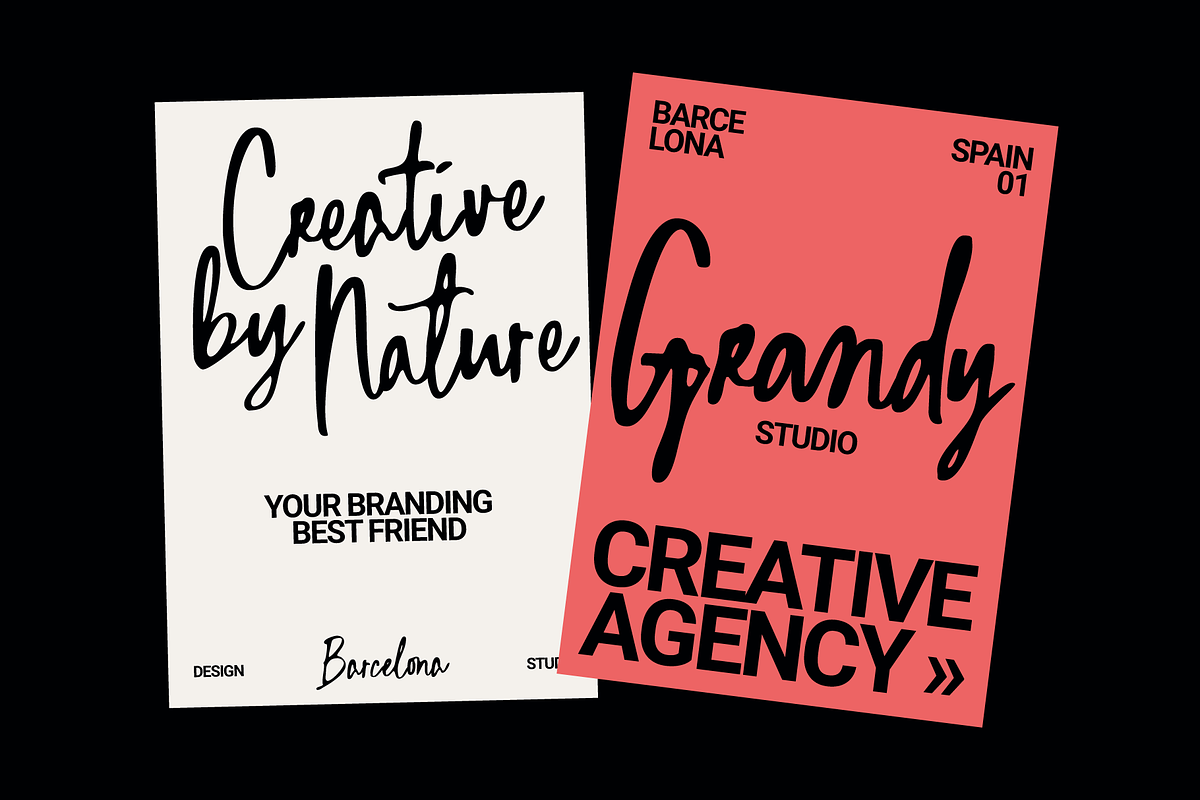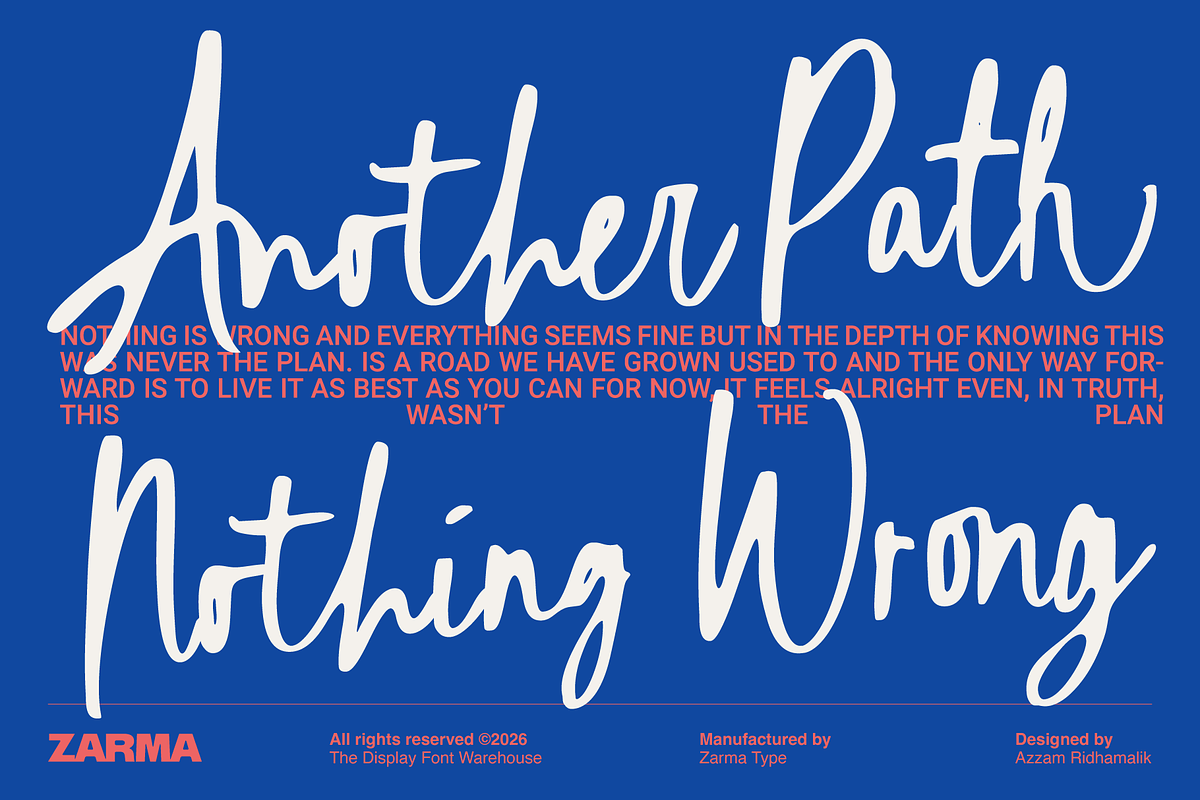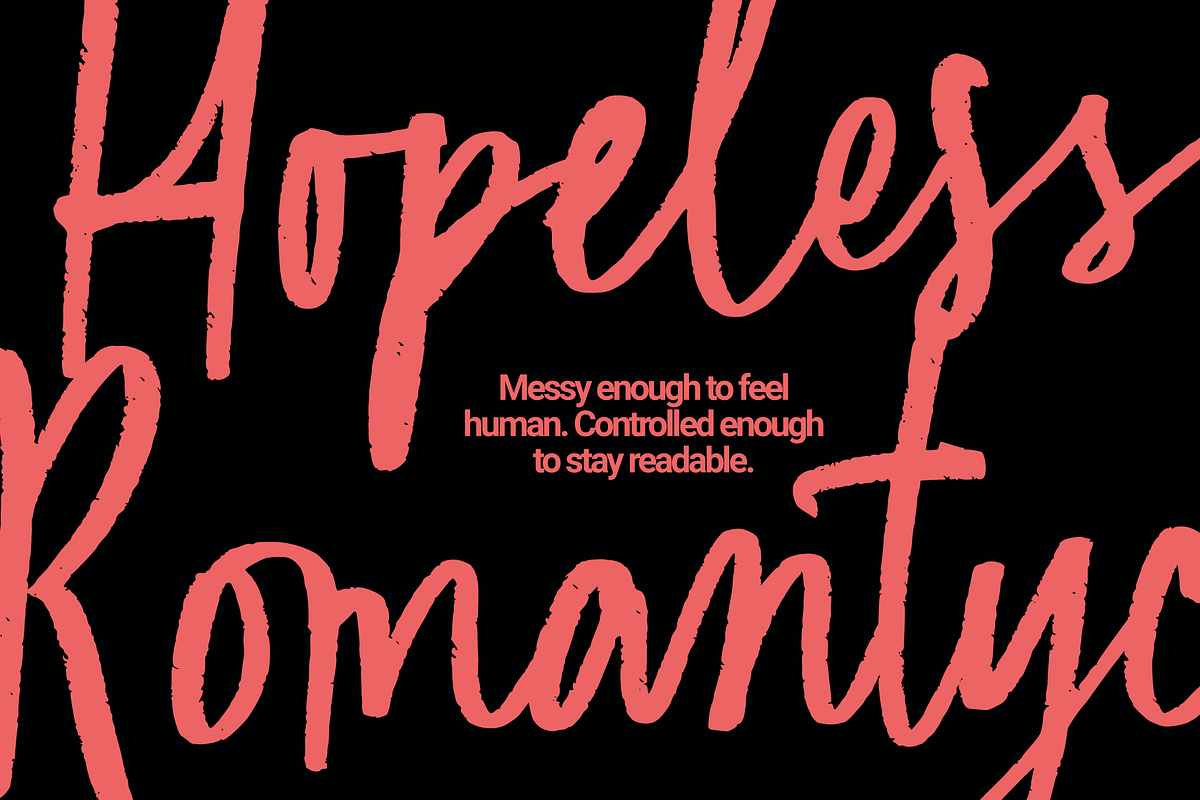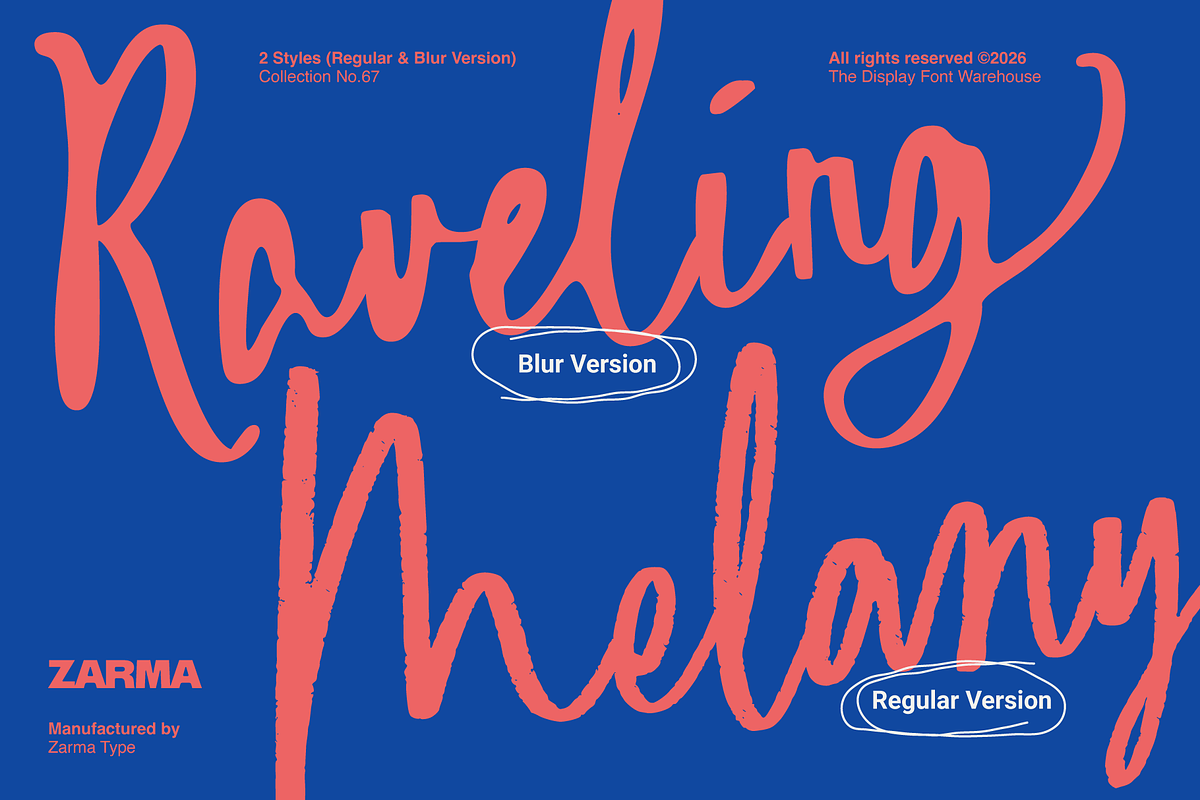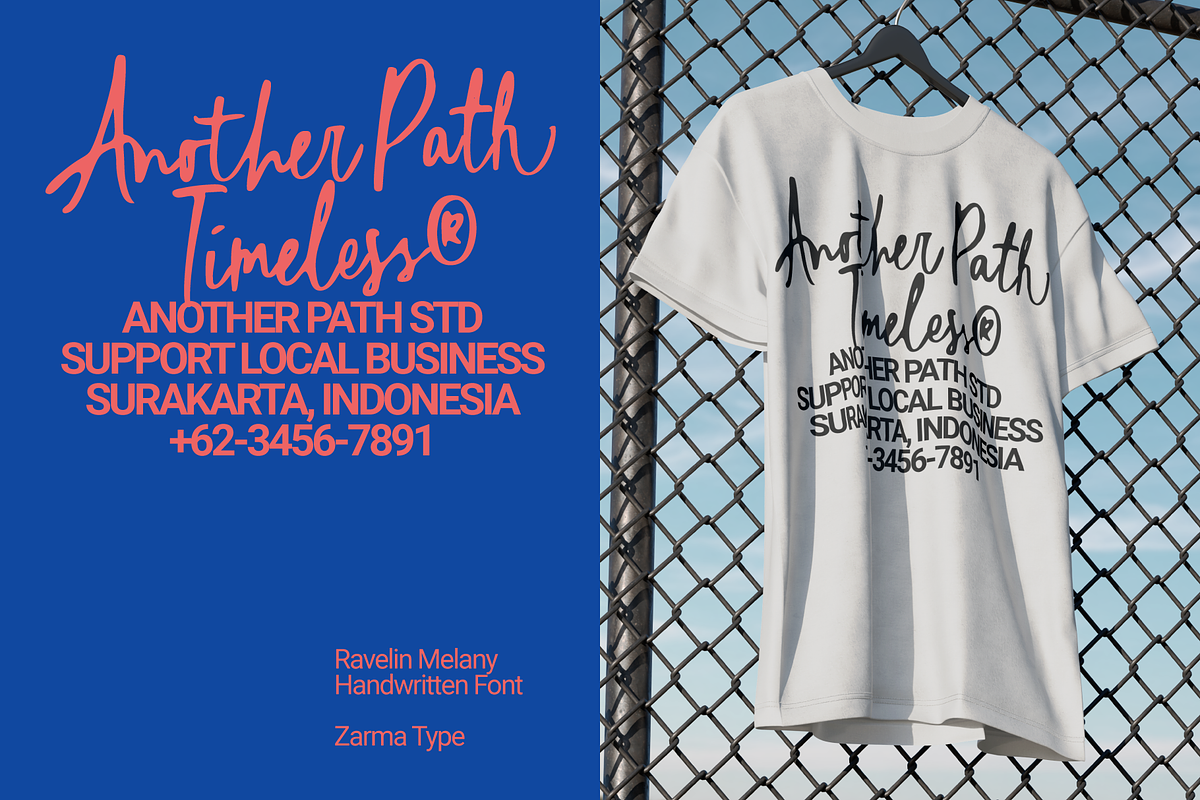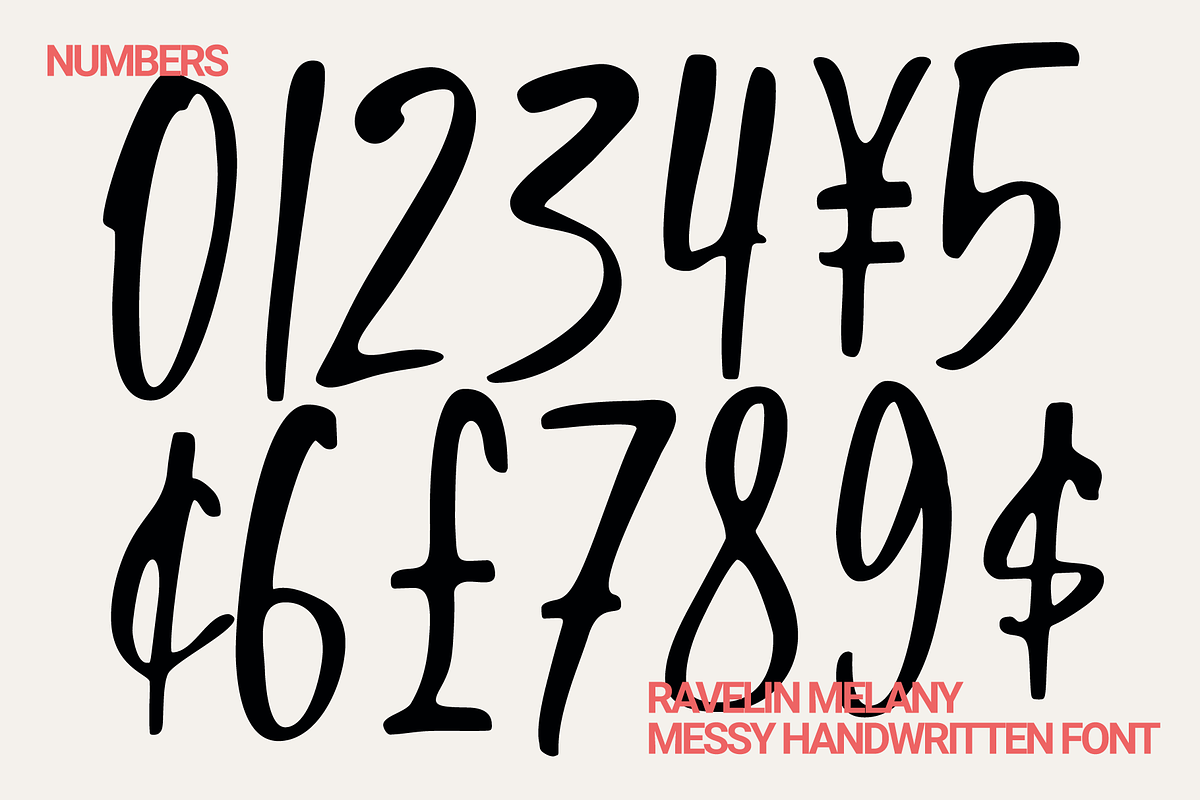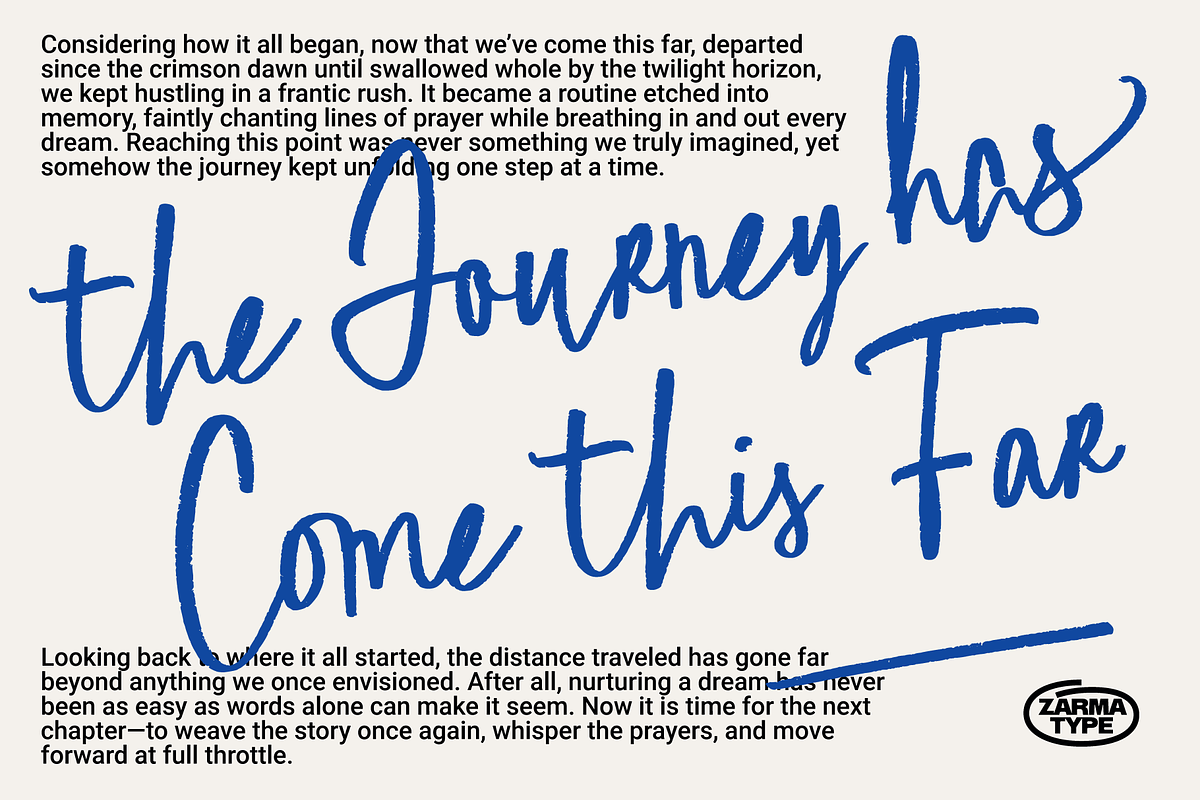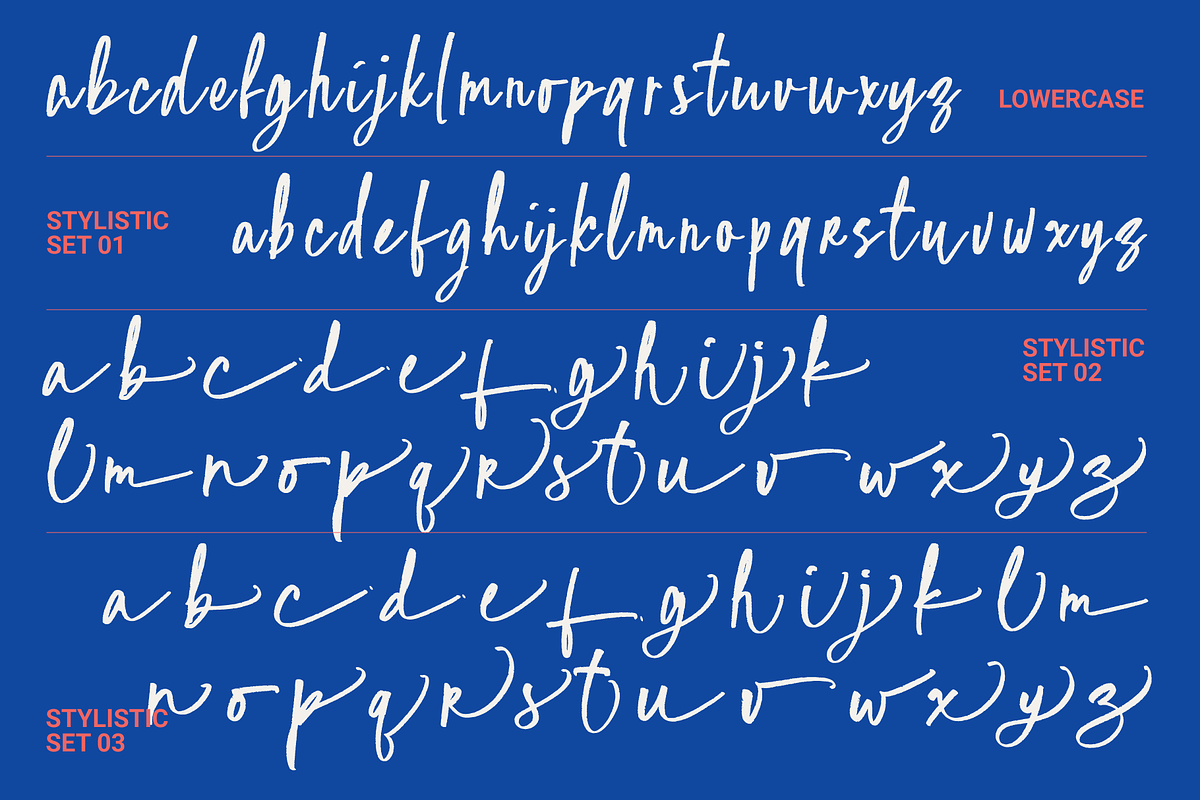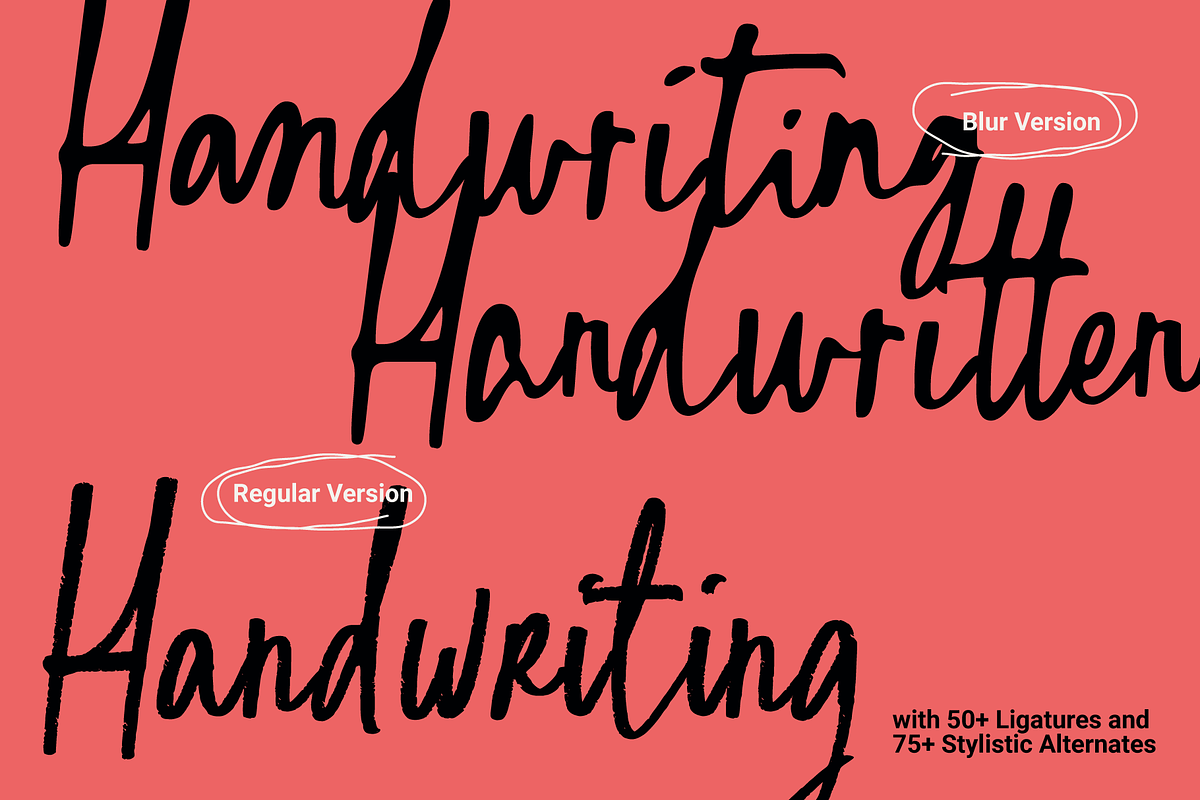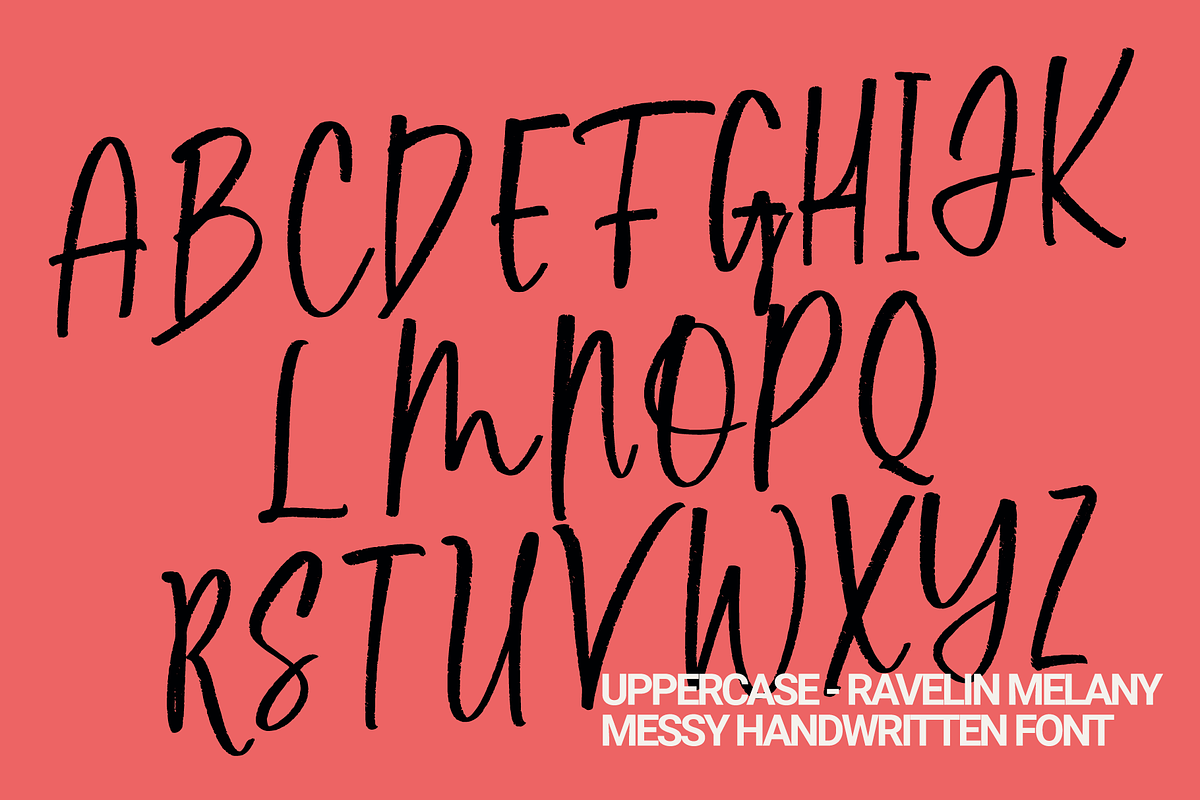
Raveling Melany - Messy Handwritten
Raveling Melany is an expressive messy handwritten font shaped by wild capitals, shifting letter sizes, irregular baselines, and the unpredictable rhythm of real handwriting. Its spontaneous brush movement feels raw and personal, while the controlled lowercase forms keep words readable and practical for display typography.
Inspired by hurried notes, typewriter-era editorial culture, textured brush lettering, and inky marker strokes, Raveling Melany brings an imperfect human character into modern design. Its dramatic uppercase letters create strong visual statements, while varied alternates and natural ligatures help repeated characters feel less mechanical.
The font comes in two distinctive styles. The Regular Style features rough dry-brush edges and visible handcrafted texture, while the Blur Style offers a smoother, denser, inky-marker finish. Use them separately for different moods or combine both styles to create layered, expressive compositions.
With more than 50 ligatures and 75 stylistic alternates, Raveling Melany gives you greater control over the rhythm and personality of each word. Alternate letterforms offer genuinely different shapes rather than repeating the standard characters with only minor changes.
Editorial layouts and magazine covers
Branding and expressive logo designs
Posters and oversized headlines
Fashion campaigns and apparel graphics
Product packaging and labels
Album covers and merchandise
Social media graphics and quotes
Creative agencies and personal brands
Book covers and independent publications
Contemporary advertising campaigns
Two styles: Regular and Blur
Wild and expressive capital letters
Irregular handwritten baseline
Varied letter sizes and natural movement
50+ handcrafted ligatures
75+ stylistic alternates
Three stylistic sets
Numbers and punctuation
Suitable for print and digital projects
Style Characteristics:
Regular Style A rough handwritten style with textured dry-brush edges, visible imperfections, and an organic handcrafted finish.
Blur Style A smoother handwritten style with dense inky-marker strokes, cleaner edges, and stronger impact for branding and digital display.
Bring spontaneous movement, expressive imperfections, and a genuinely handcrafted rhythm into your next project with Raveling Melany.